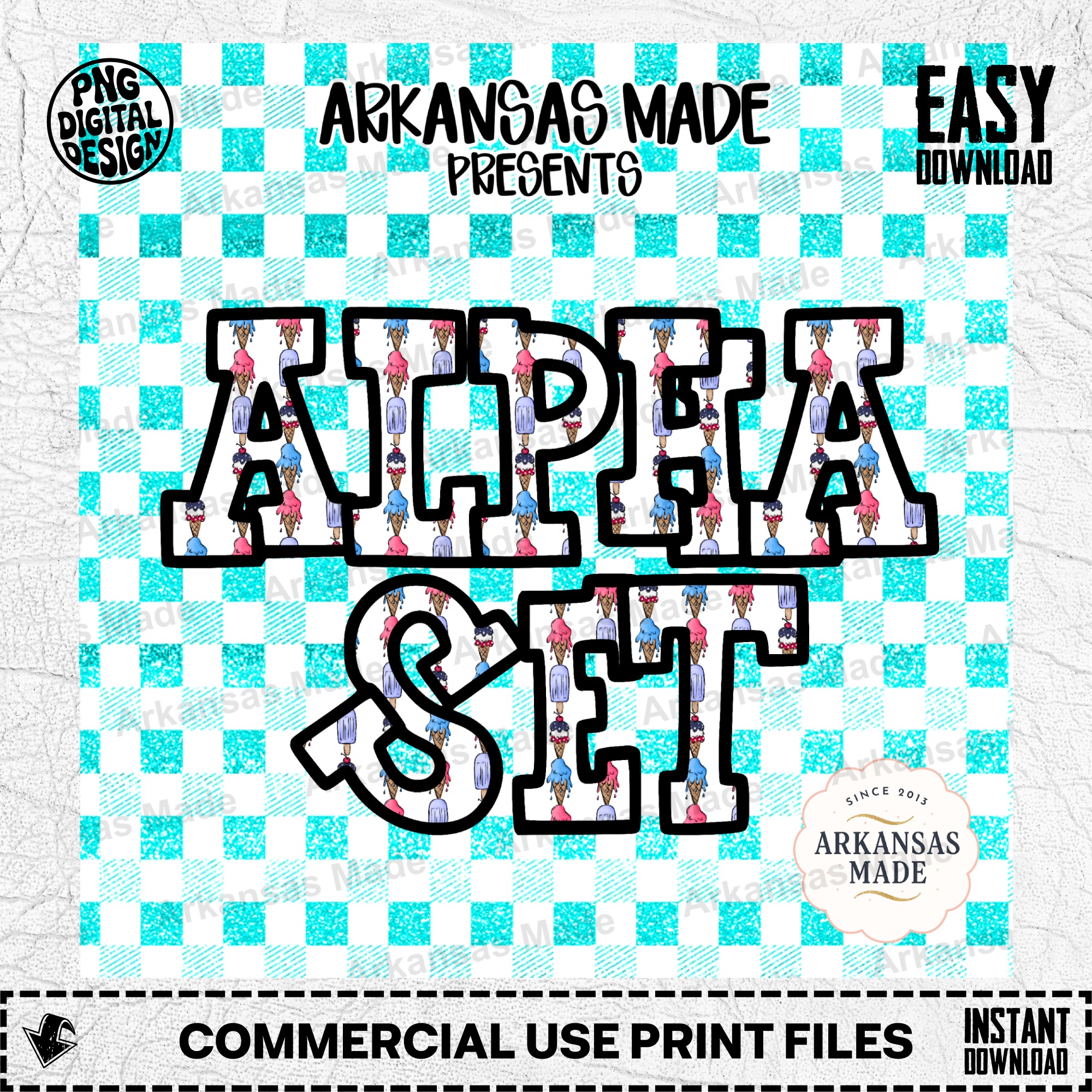
Sweet Ice Cream Alphabet PNG Set | Summer Dessert Alpha Letters Bundle | Patriotic Popsicle Font Clipart for Crafts & T-Shirts Digital
Dive into summer with our delightful Ice Cream Alphabet PNG Set, featuring sweet dessert letters perfect for all your creative projects! This vibrant alpha letters bundle includes charming ice cream cones and popsicles, ideal for crafting personalized t-shirts, party invitations, scrapbooking, and patriotic decorations. Designed for crafters, small business owners, and DIY enthusiasts, it’s perfect for summer celebrations, birthdays, and adding a touch of sweetness to any design.